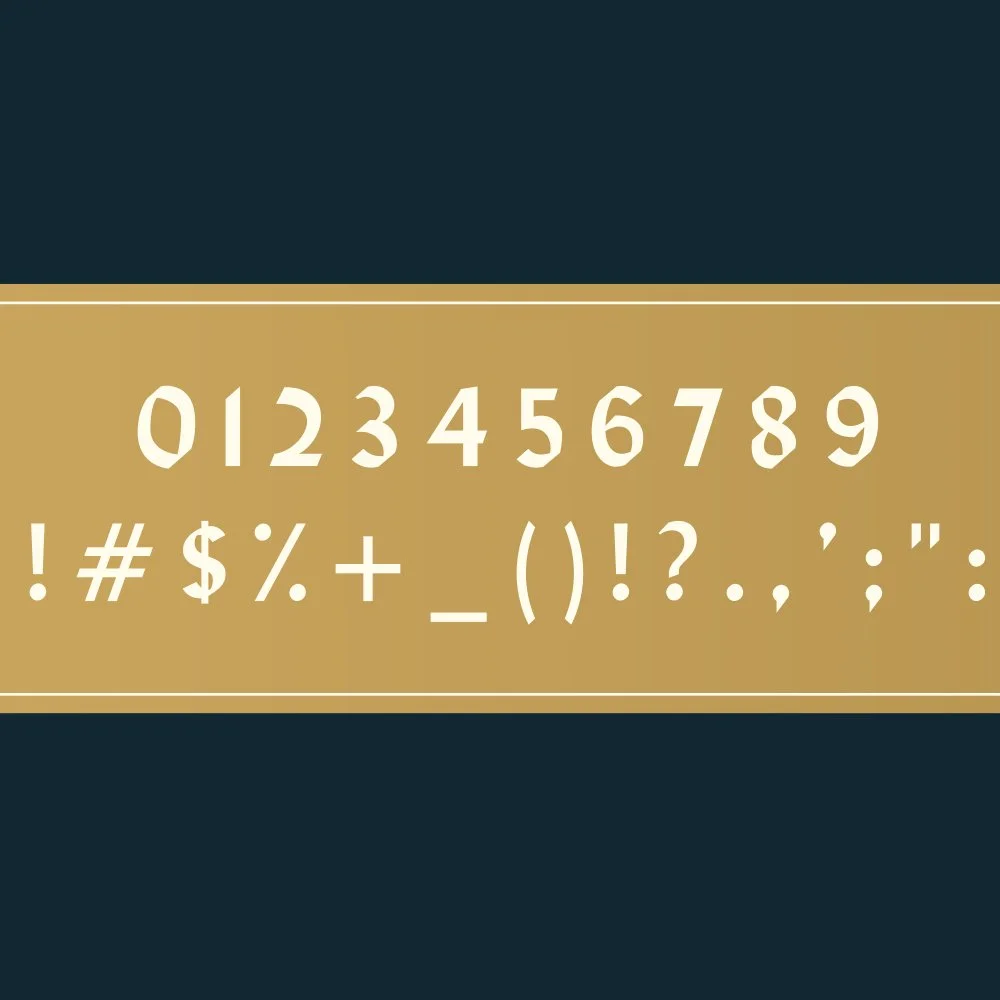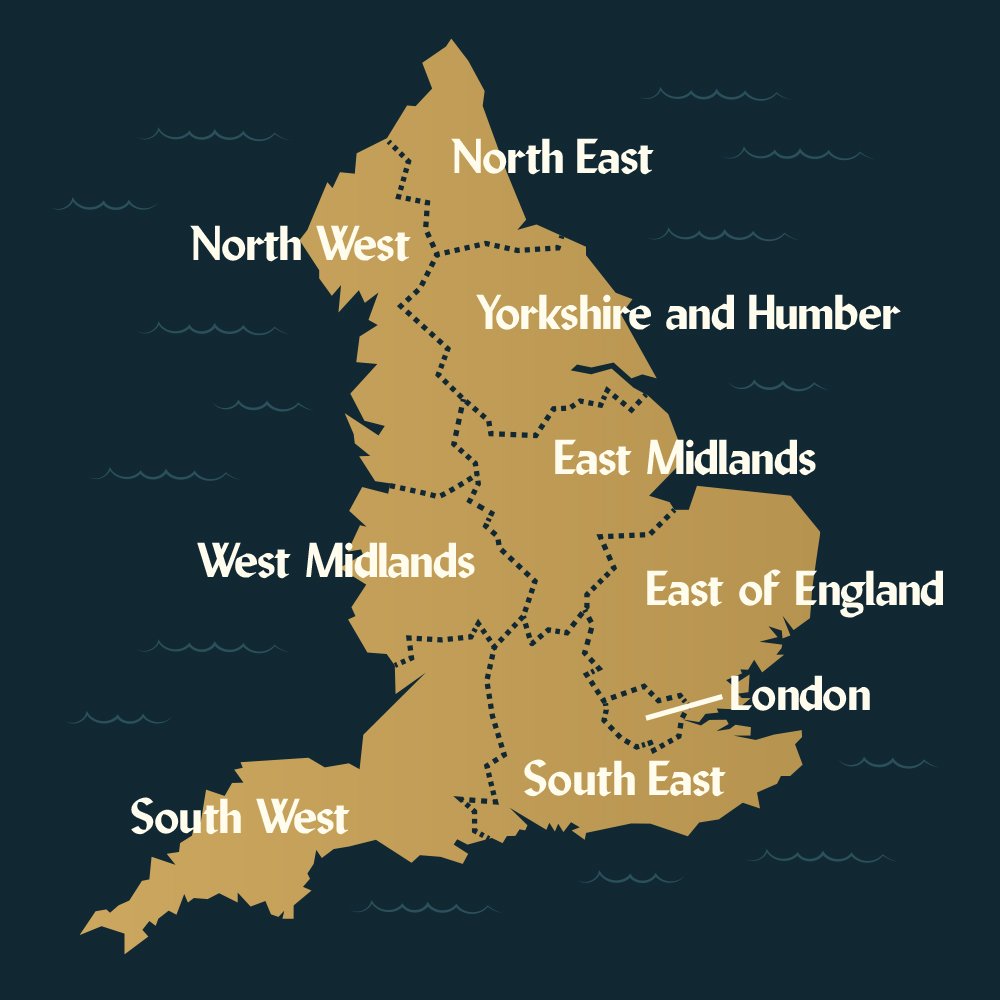
Sharp, demanding, and present, Ellifont is an elegant and adaptable font great for a variety of applications. Pronounced capitals, distinct lowercases, and a robust set of numbers and punctuations are redolent of the 1940s with a sleek modern build and angled construction.
Full capital case set
Full lowercase set
Numerals and punctuation